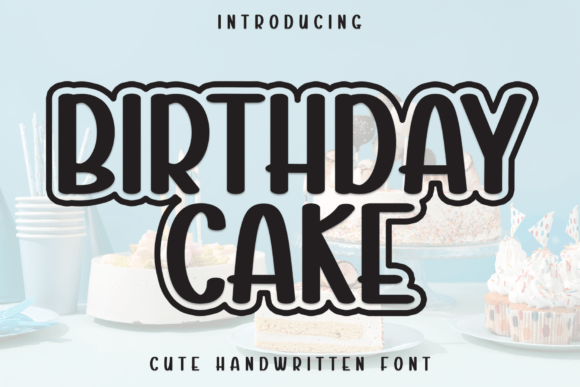
Birthday Cake
Finding the right design elements can be challenging, but Birthday Cake offers an exceptional collection that elevates your work instantly.
Whether you are creating POD (Print on Demand) products, wedding invitations, or social media graphics, Birthday Cake is an ideal fit.